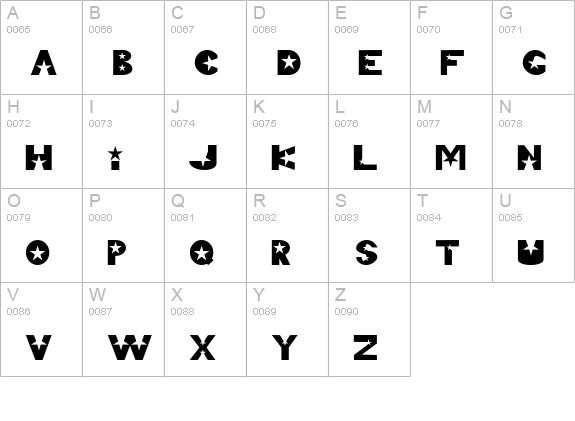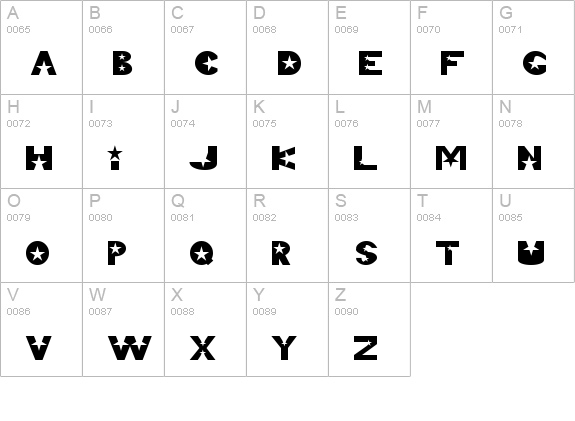
Telemarketing Superstar Font Details
Introducing the Telemarketing Superstar font, a captivating and dynamic typeface designed for those who want to make a lasting impression. This font is the perfect blend of professionalism and creativity, making it the ultimate choice for telemarketing professionals, marketers, and anyone looking to add a touch of sophistication to their designs. With its sleek and modern lines, Telemarketing Superstar font captures attention effortlessly, ensuring that your message stands out from the crowd. Its carefully crafted letterforms exude confidence and professionalism, making it an ideal choice for sales presentations, advertising campaigns, and corporate branding materials. What sets Telemarketing Superstar font apart is not only its stunning aesthetics but also its versatility. This font comes in a wide range of weights and styles, allowing you to choose the perfect variation that aligns with your vision and complements your design. From bold and impactful headlines to elegant and legible body text, Telemarketing Superstar font has got you covered. And the best part? Telemarketing Superstar font is freely available to download at FontsMarket.com. Yes, you heard it right! You can now access this incredible typeface without any cost, giving you the freedom to use it in your personal and commercial projects without breaking the bank. So, why wait? Unlock the potential of your designs with Telemarketing Superstar font. Download it for free at FontsMarket.com and let your creativity shine through every word, every line, and every message. Elevate your telemarketing game and leave a lasting impression with this exceptional font.